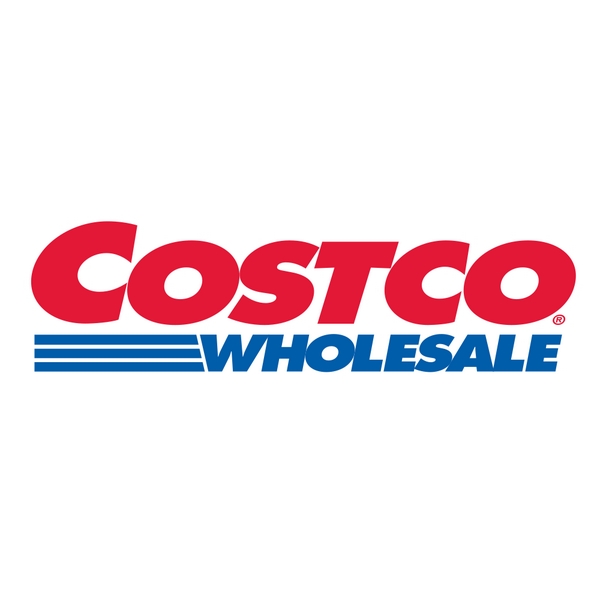
Costco Wholesale Font
It's likely that the firm's logo was created by manually tilting and lengthening Futura Extra Bold Oblique, a commercial font designed by Paul Renner. More information about the font is available here.